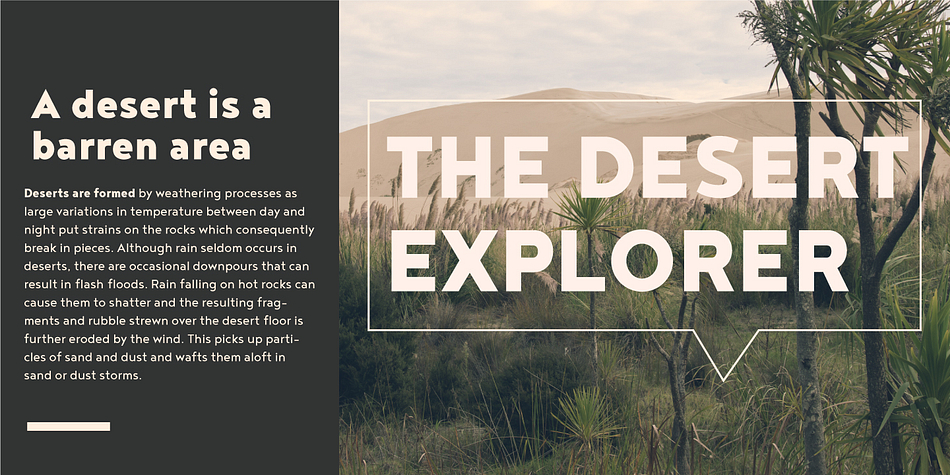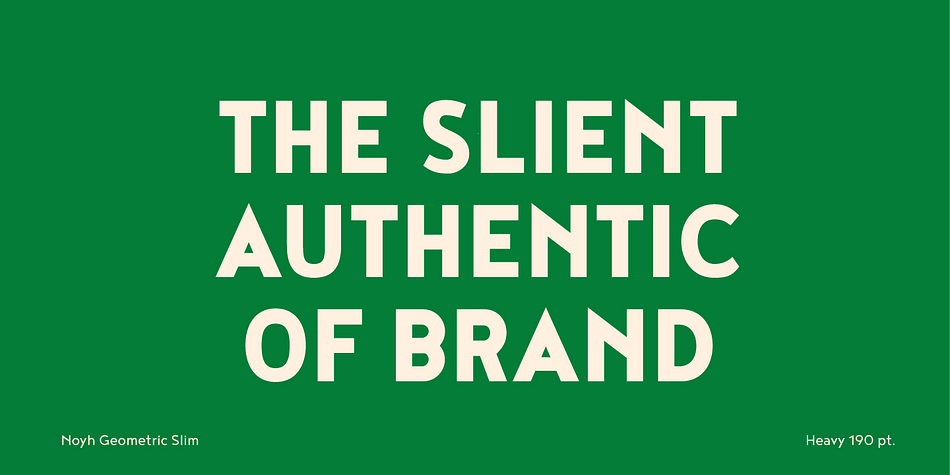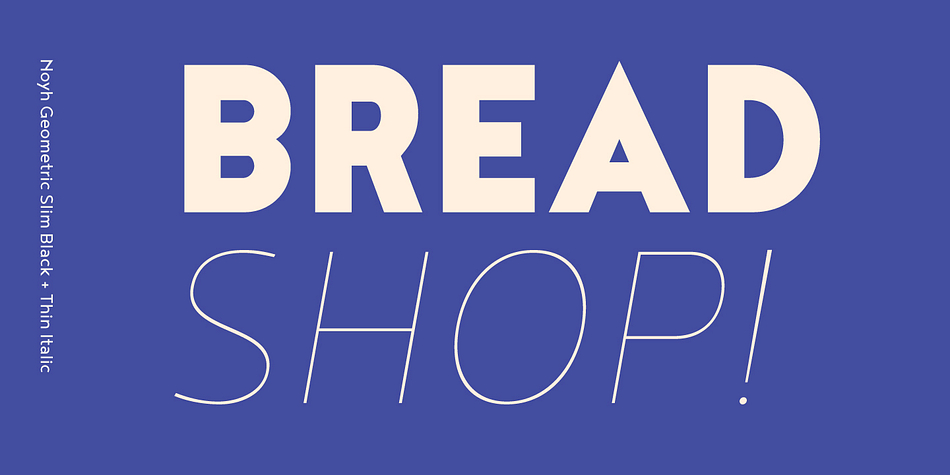
Noyh Geometric Slim
Designed by Chatnarong Jingsuphatada, Noyh Geometric Slim is a sans serif and display sans font family. This typeface has eighteen styles and was published by Typesketchbook.
Noyh Geometric Slim is an altered form of the original “Noyh” (2015) typeface. We added sharp corners in the apex, including the structure of typeface. Import to be more Corporate, the font family has flat terminals that harmonize with sharp corners. With all of these features, “Noyh Geometric Slim” is a prominent, eye-catching and unique typeface. It comes with 9 weights and italic type in order to suit for multifunctional usage, especially for cooperative work, such as website, magazine, editorial, publishing, as and packaging.